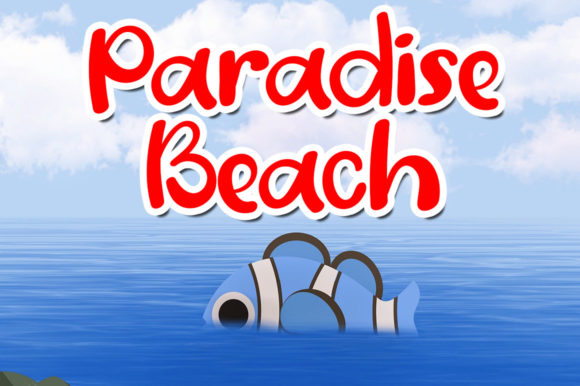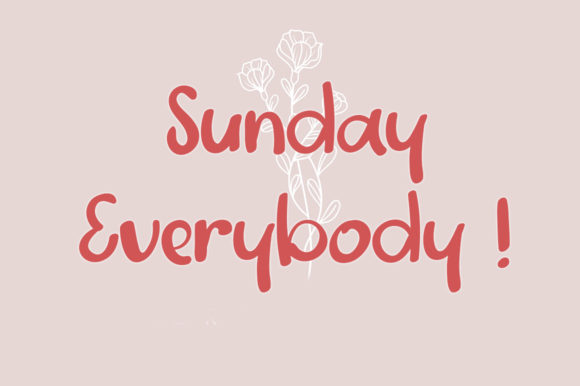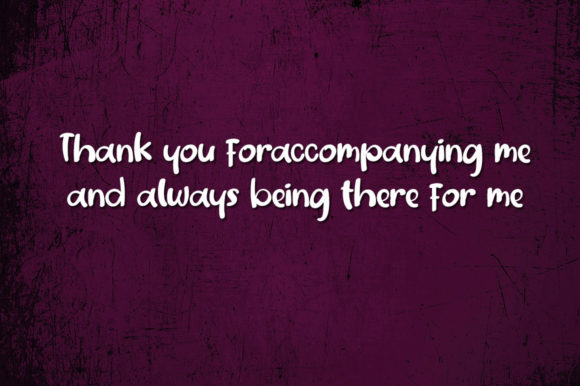
Enter the Back to Fishing Font, a charming and approachable handwritten font that’s sure to make your designs shine. With its friendly demeanor, this font is the perfect companion for any creative project. Whether you’re crafting a social media post, designing a logo, or writing a blog, the Back to Fishing Font has the potential to elevate your work and leave a lasting impression.
Key Features of “Back to Fishing Font”
- Font Family: Back to Fishing Font is a unique, handwritten font designed for fishing and outdoor enthusiasts. It is available in a single font family.
- Unique Characteristics: The font features a playful, handwritten style with a touch of nostalgia, making it perfect for fishing-themed designs, outdoor brands, and creative projects.
- Character Count: The font contains a wide range of characters, including uppercase and lowercase letters, numbers, and punctuation marks, ensuring that users have everything they need to create engaging designs.
Back to Fishing Font Review
Overall, I’m quite impressed with the “Back to Fishing Font”. It has a certain charm that’s hard to resist.
- ✨ Unique style: The font has a distinct, nostalgic feel that’s perfect for outdoor and nature-related projects.
- ✨ Versatility: It works well for both titles and body text, making it a great choice for a variety of projects.
- ✨ Easy to read: The font is clear and easy to read, even at smaller sizes.
However, there are a few limitations:
- ⚠️ Limited language support: The font only supports a limited number of languages, which may be a issue for international projects.
- ⚠️ Not ideal for complex text: The font’s unique style may not be the best choice for complex text or technical writing.
- ⚠️ May not be suitable for all audiences: The font’s nostalgic feel may not appeal to all audiences, particularly those who prefer more modern or sleek fonts.
Overall, I think the “Back to Fishing Font” is a great choice for projects that need a unique, outdoor-inspired feel. However, it’s not a one-size-fits-all solution, and you should carefully consider the limitations before using it in your project.
Tip: To get the most out of Back to Fishing Font, use it for titles and headings to add a vintage touch to your design.
Tip: Use Back to Fishing Font in combination with other vintage fonts to create a unique and nostalgic design.
Tip: Use Back to Fishing Font for titles and headings to add a touch of elegance to your presentation or document.
Back to Fishing Font is perfect for:
- Creating vintage-inspired designs
- Adding a nostalgic touch to your branding
- Designing posters and flyers for outdoor events
- Creating a unique and eye-catching title for your project